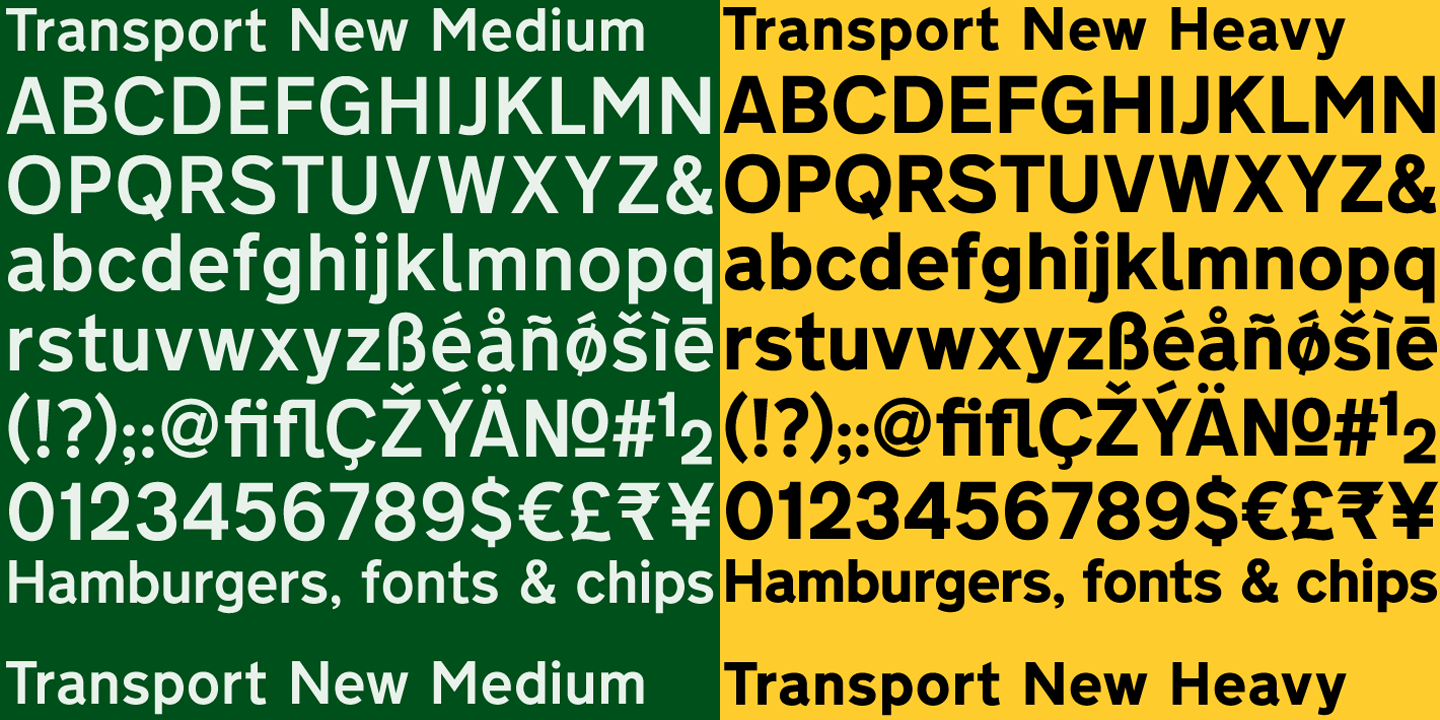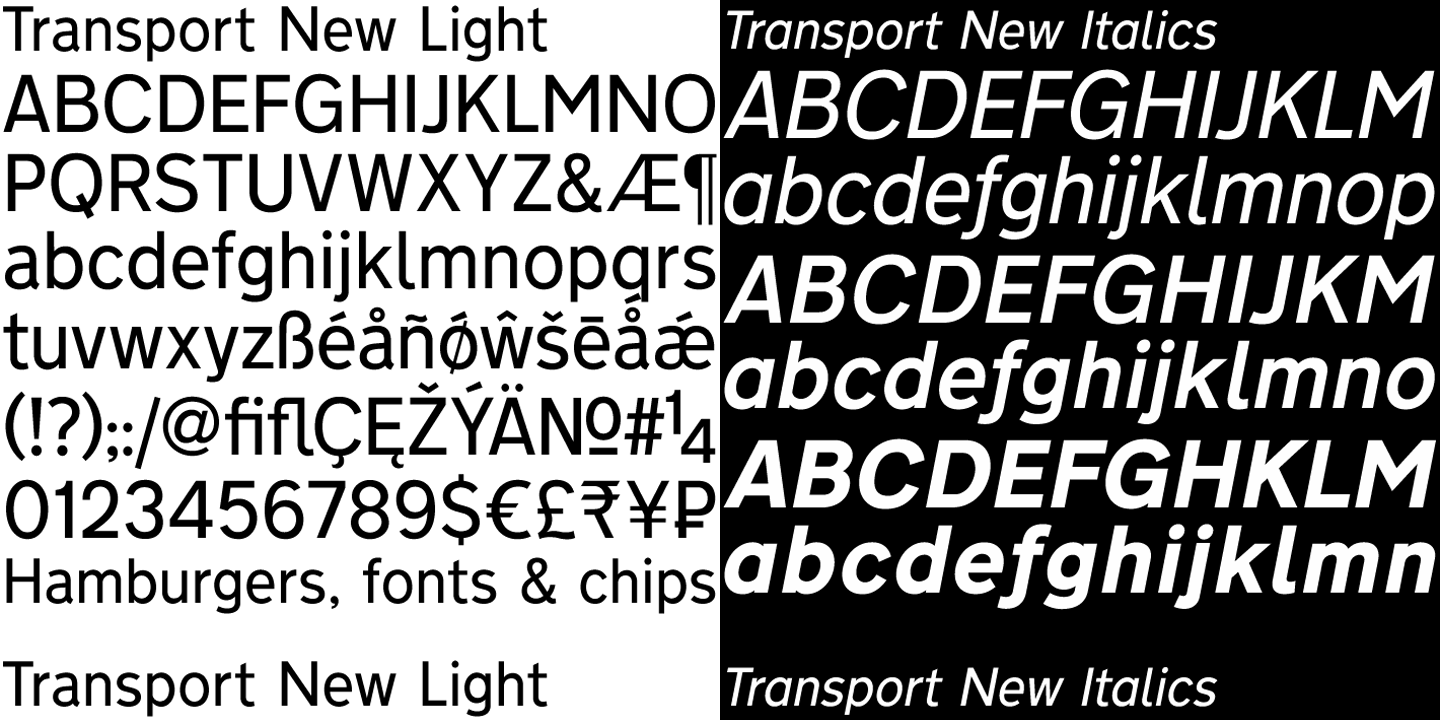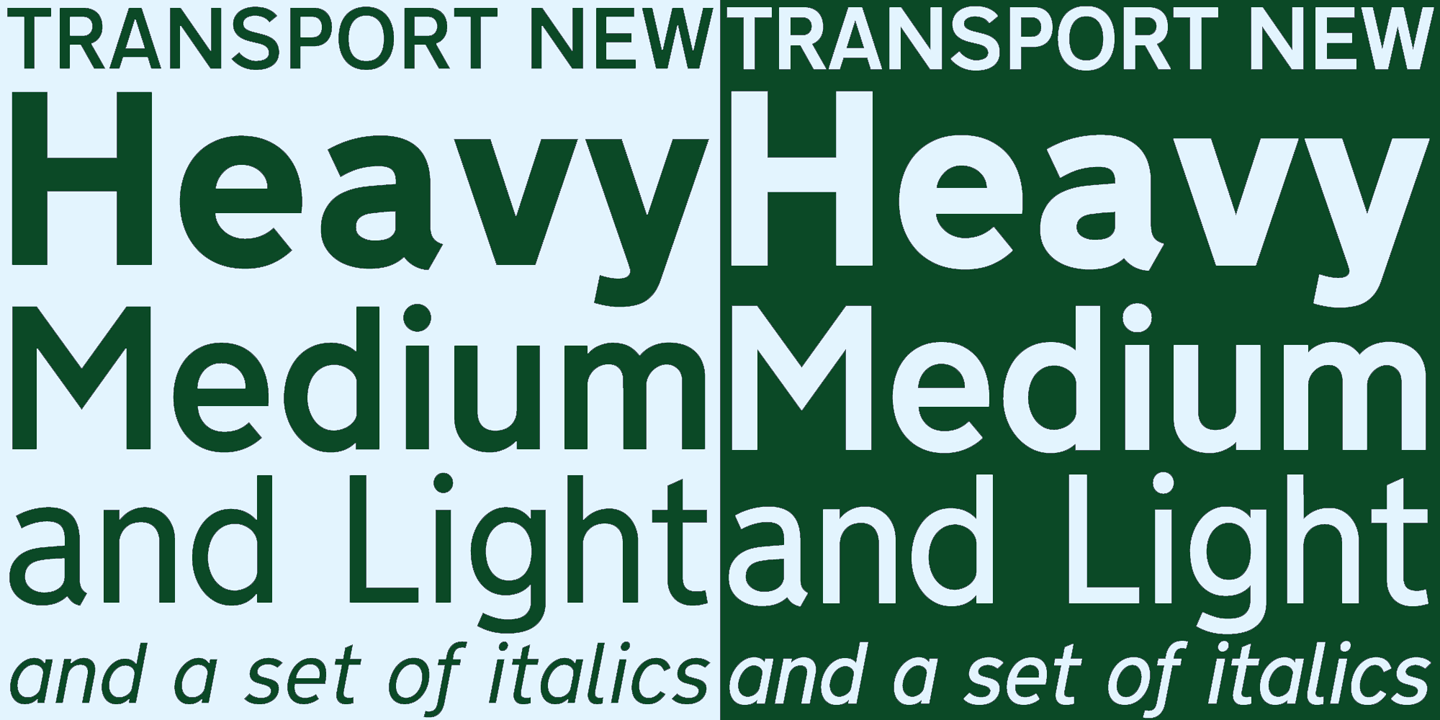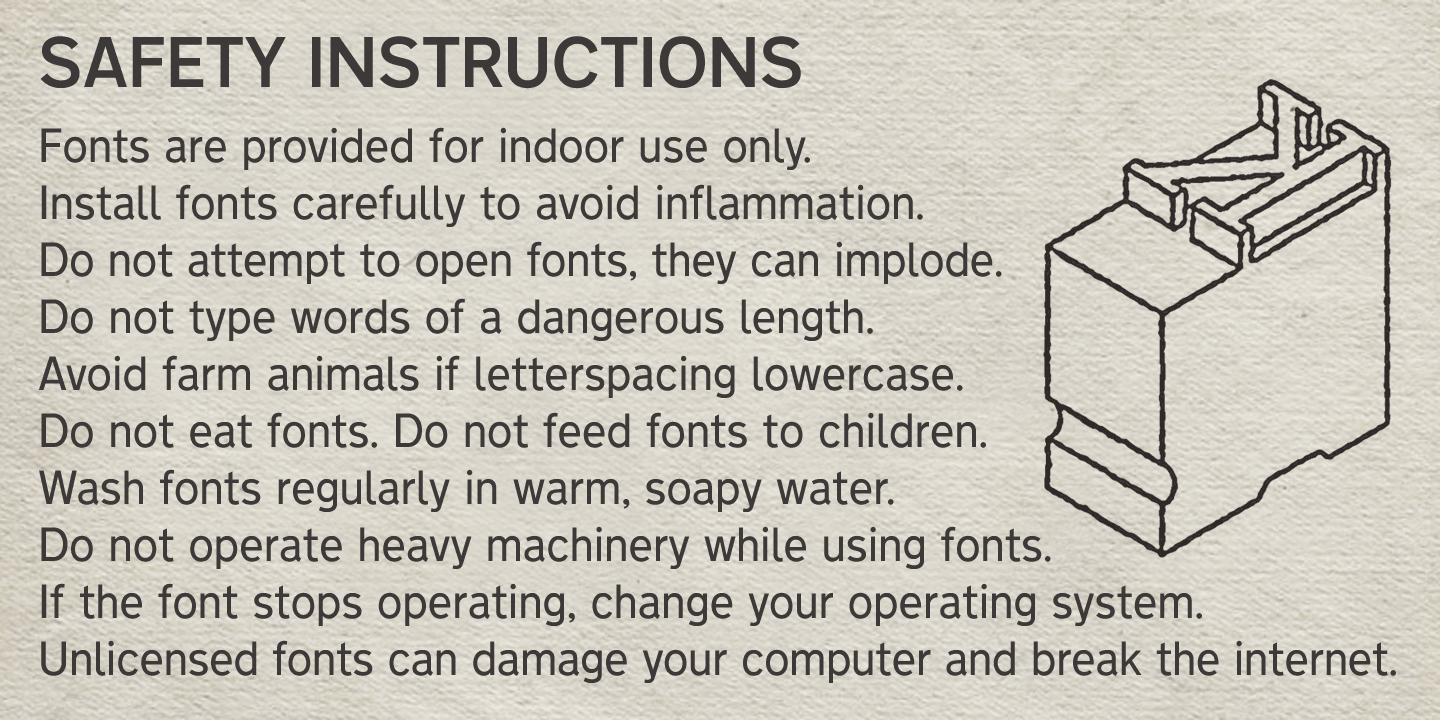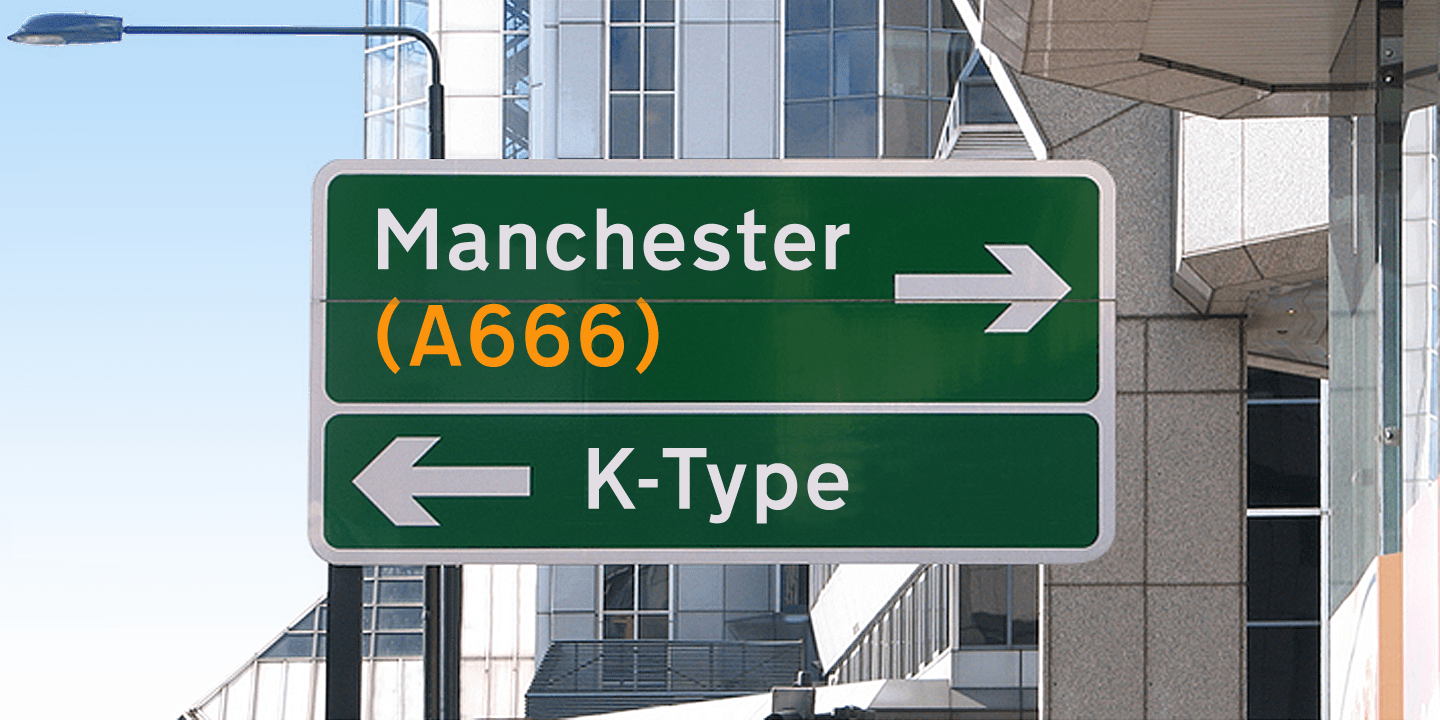
Transport New
Transport New is a redrawing of the typeface designed for British road signs. In addition to the familiar Heavy weight (intended for dark text on a light background) and Medium weight (for white text which appears bolder against a dark background), the…